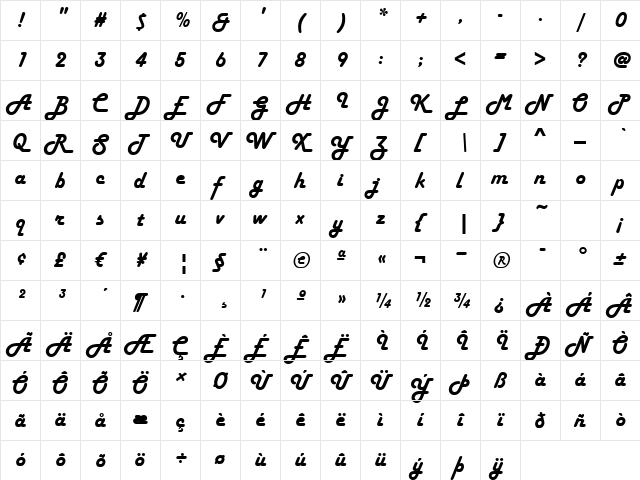
Script-H651 Regular Font Preview
Script-H651 Regular
Script-H651 Regular Font Details
Design Context for Script-H651 Typeface
Script-H651 brings a calligraphic fluidity to the page — its connecting strokes and expressive curves give it an unmistakably human quality.